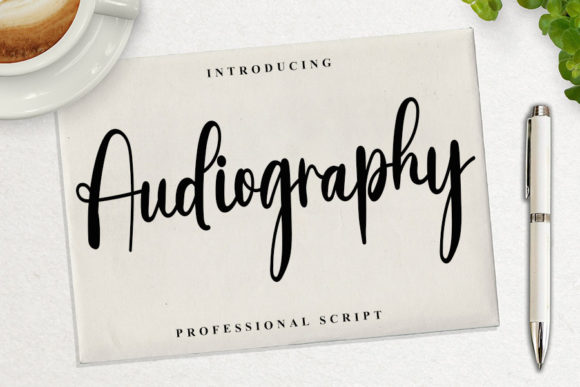
Audiography Font: Elevate Your Designs with a Flowing, Casual, and Relaxed Handwritten Style
In the world of typography, fonts play a crucial role in conveying the tone and personality of a design. For designers and crafters looking for a unique and versatile font, Audiography is an excellent choice. This flowing, casual, and relaxed handwritten font is perfect for a wide range of designs, from creative projects to commercial endeavors. In this article, we’ll explore the features and benefits of Audiography Font and how it can elevate your designs.
What is Audiography Font?
Audiography Font is a beautifully crafted handwritten font that exudes a sense of natural elegance. Its unique style is characterized by flowing lines, casual curves, and a relaxed vibe. This font is designed to be highly versatile, making it suitable for various design applications, including:
- Web design
- Stationery and packaging
The Benefits of Audiography Font
Audiography Font offers several benefits that make it an attractive choice for designers and crafters:
- Unique Style: Audiography Font boasts a distinctive style that sets it apart from other fonts. Its natural, handcrafted look adds a touch of personality to any design.
- Versatility: This font is incredibly versatile, making it suitable for a wide range of designs, from formal to informal.
- Ease of Use: Audiography Font is easy to read and works well in various contexts, including headings, body text, and captions.
- Imagination Unleashed: As the font’s description states, “The only limit is your imagination!” Audiography Font encourages creativity and experimentation, allowing designers to push the boundaries of their designs.
Design Inspiration with Audiography Font
Audiography Font is perfect for designers and crafters looking to add a personal touch to their work. Here are some design inspiration ideas to get you started:
- Wedding Stationery: Use Audiography Font to create beautiful wedding invitations, save-the-date cards, and thank-you notes.
- Branding and Packaging: Apply Audiography Font to your brand’s packaging, labels, and marketing materials for a unique and eye-catching look.
- Social Media Graphics: Create engaging social media graphics, such as quotes, posters, and infographics, using Audiography Font.
- Web Design: Incorporate Audiography Font into your website design to add a touch of elegance and sophistication.
Tips for Using Audiography Font
To get the most out of Audiography Font, follow these tips:
- Experiment with Colors: Audiography Font looks great in various colors, so don’t be afraid to experiment and find the perfect hue for your design.
- Mix and Match: Combine Audiography Font with other fonts to create a unique and visually appealing design.
- Pay Attention to Spacing: Make sure to adjust the spacing between letters and words to ensure optimal readability.
Audiography Font is a beautiful, flowing, casual, and relaxed handwritten font that can elevate your designs to the next level. Its unique style, versatility, and ease of use make it an excellent choice for designers and crafters. With Audiography Font, the possibilities are endless, and the only limit is your imagination! So, get creative, experiment with this amazing font, and bring your designs to life.